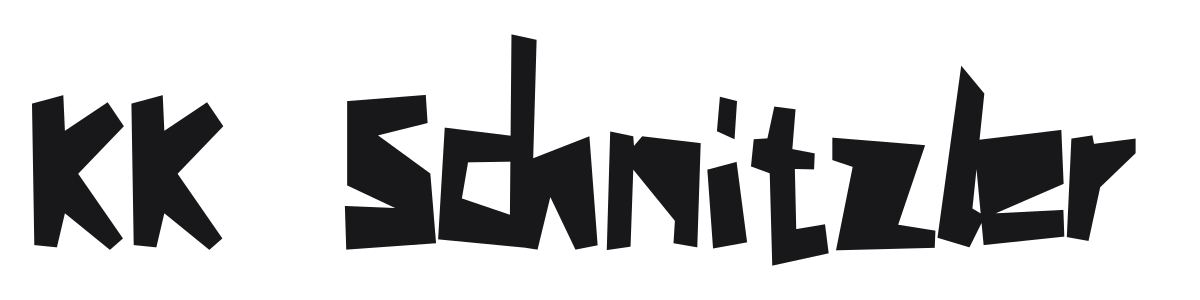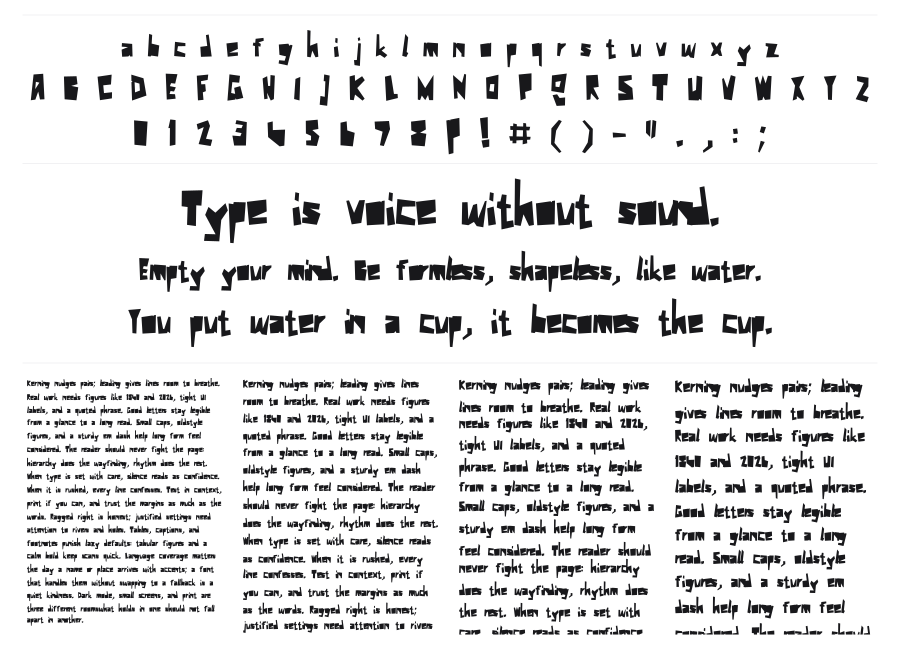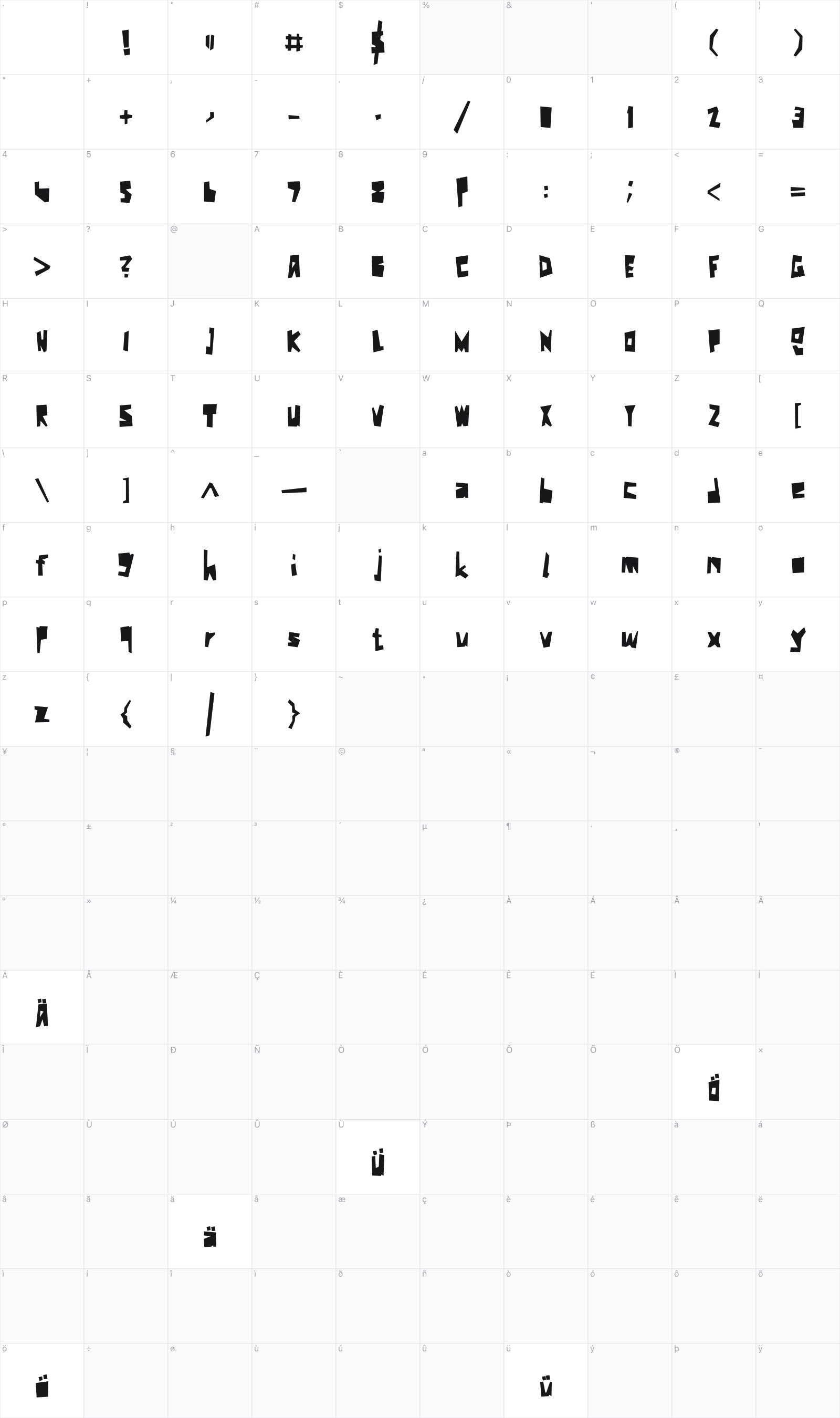
KK Schnitzler
KK Schnitzler is a bold display font built on the idea of letters that have been cut and carved by hand. Every character tilts, leans, or fragments at sharp angles, giving text an unstable, kinetic energy. It carries a strong punk and DIY sensibility that works well on posters, album art, and anything that should feel raw.